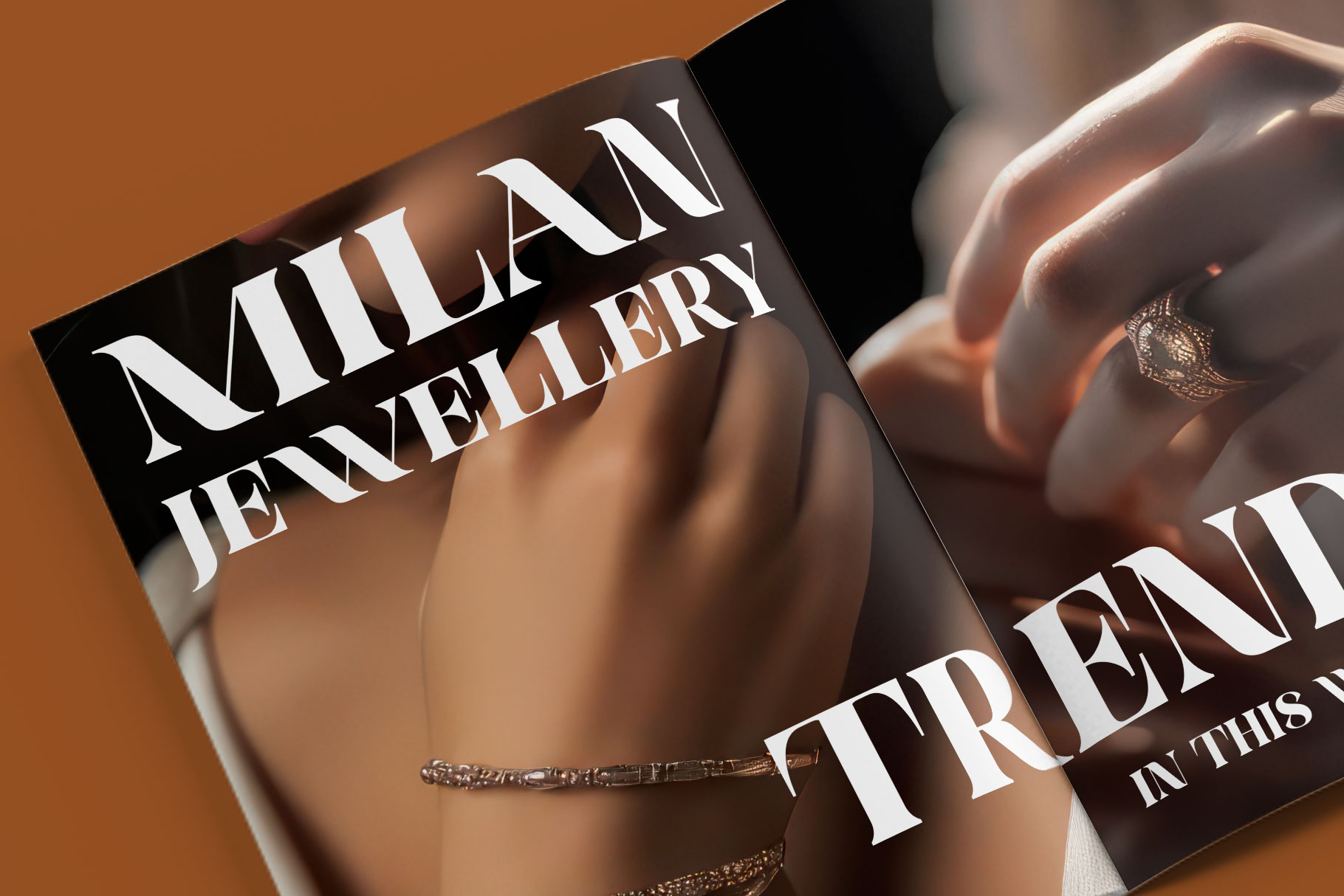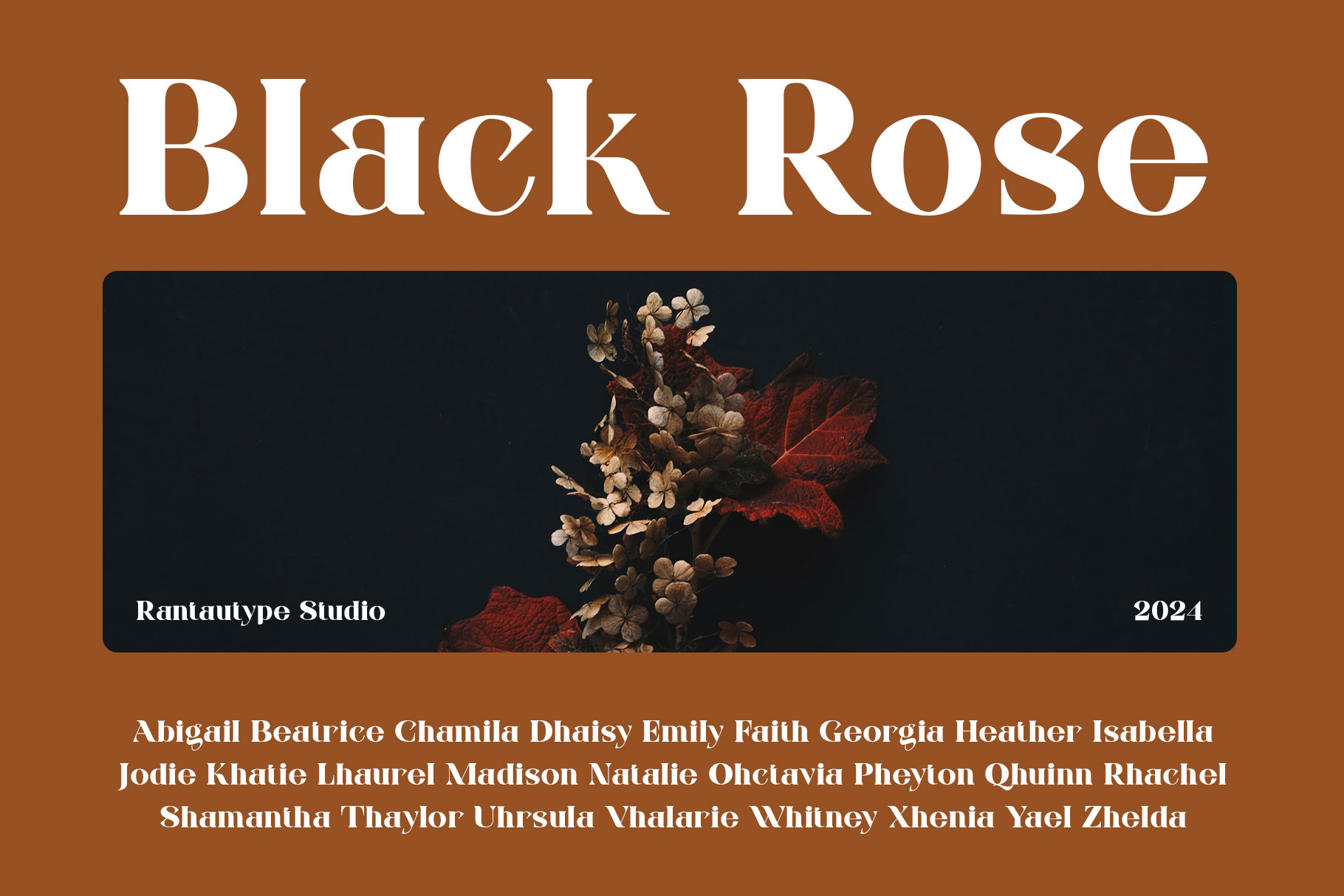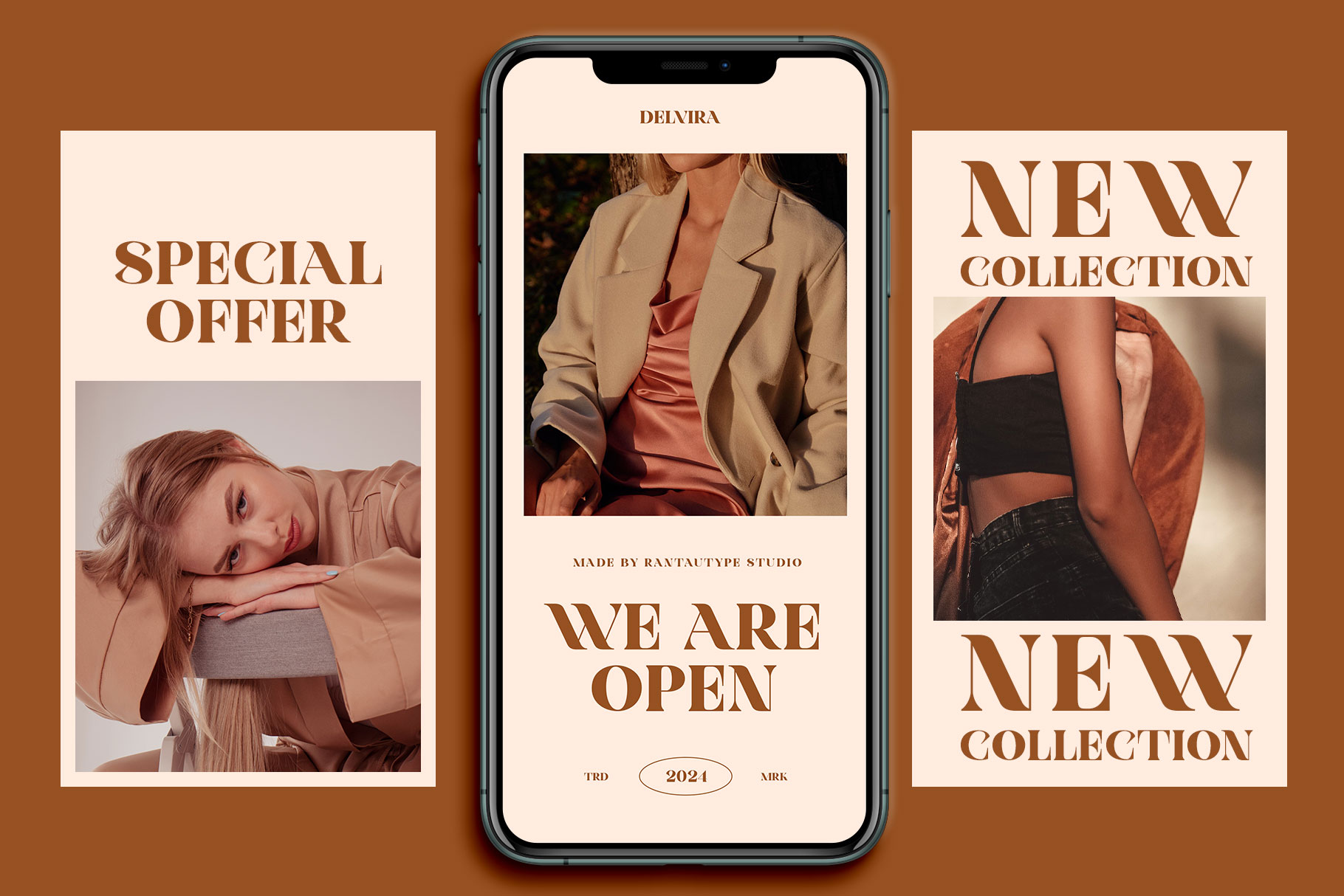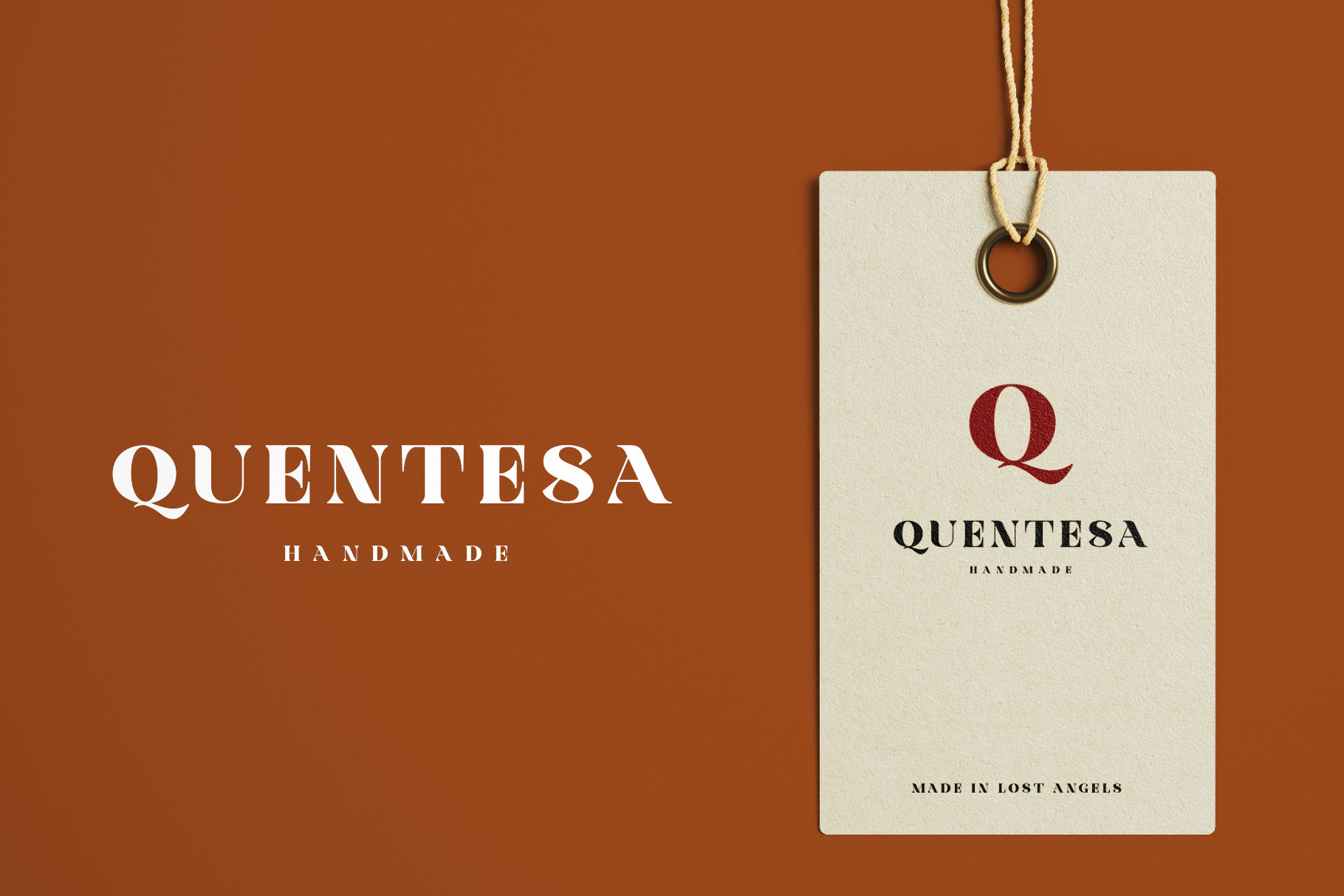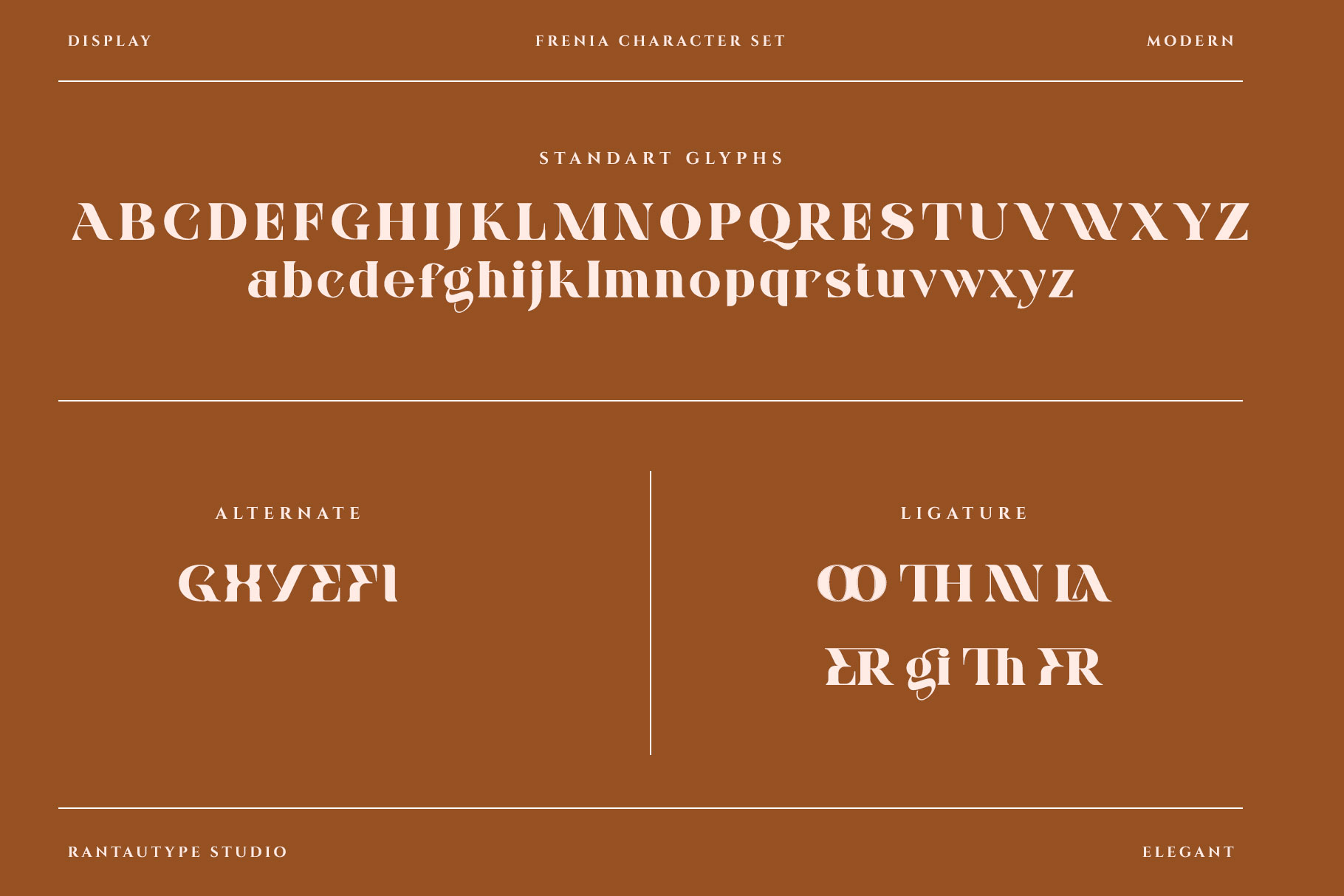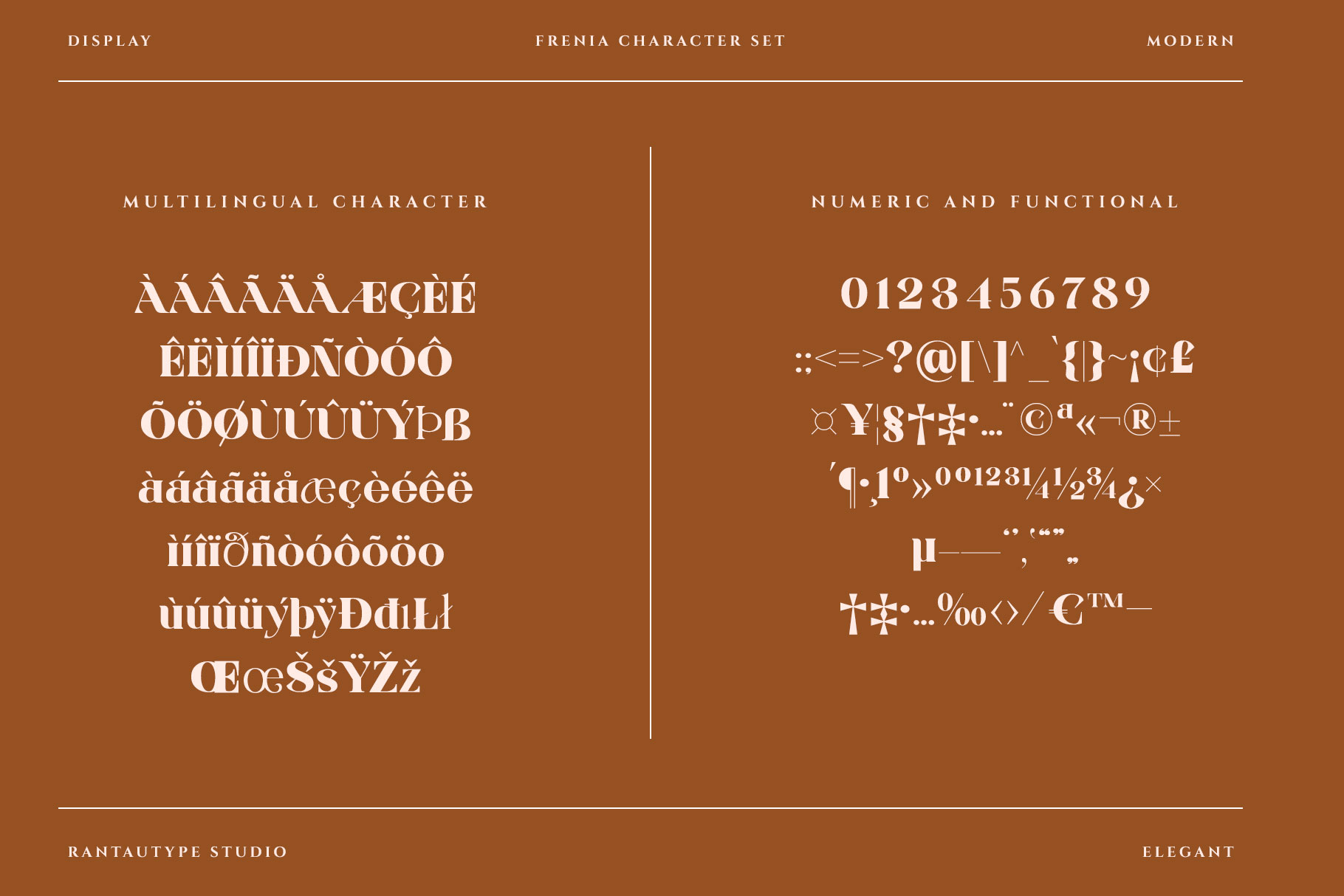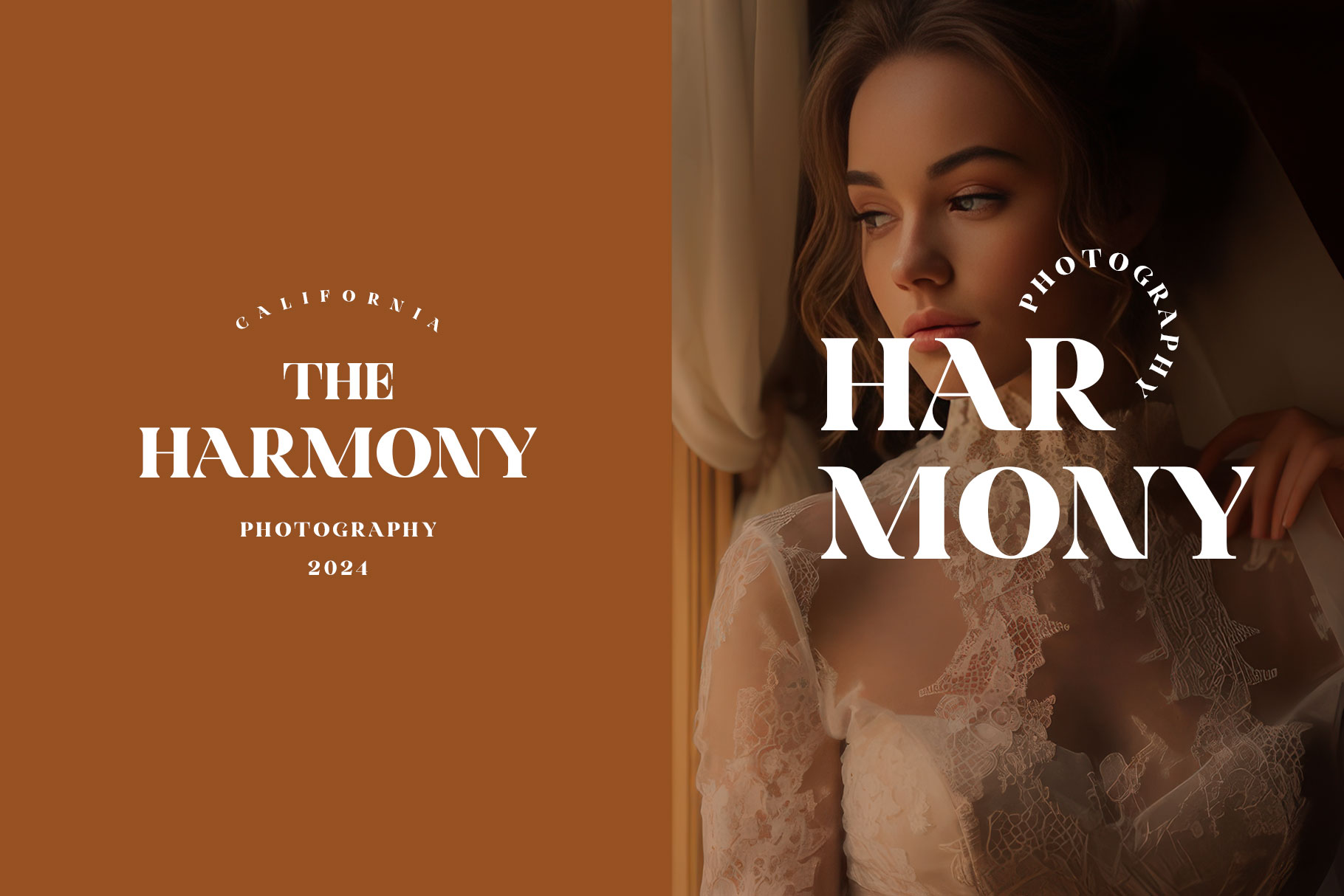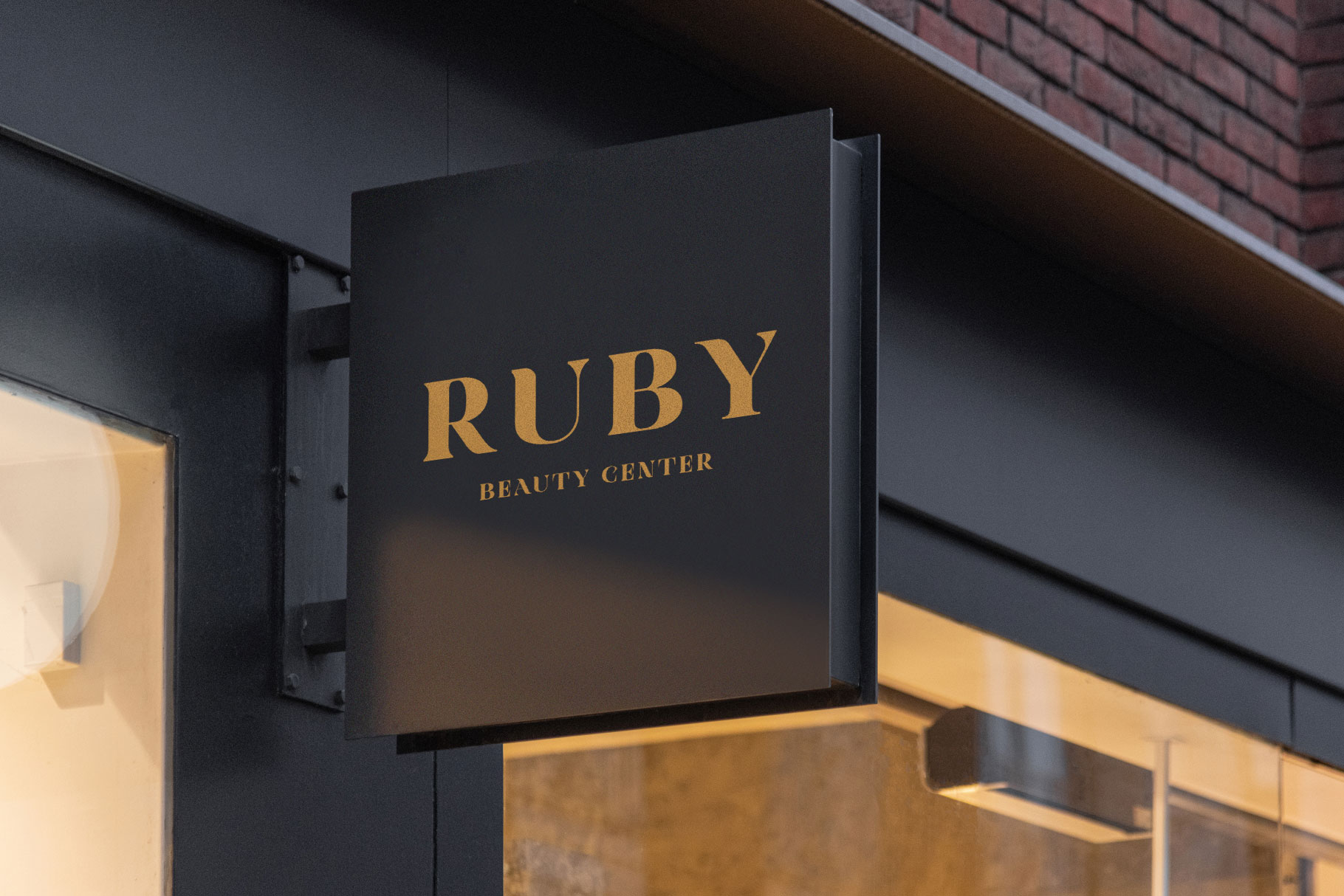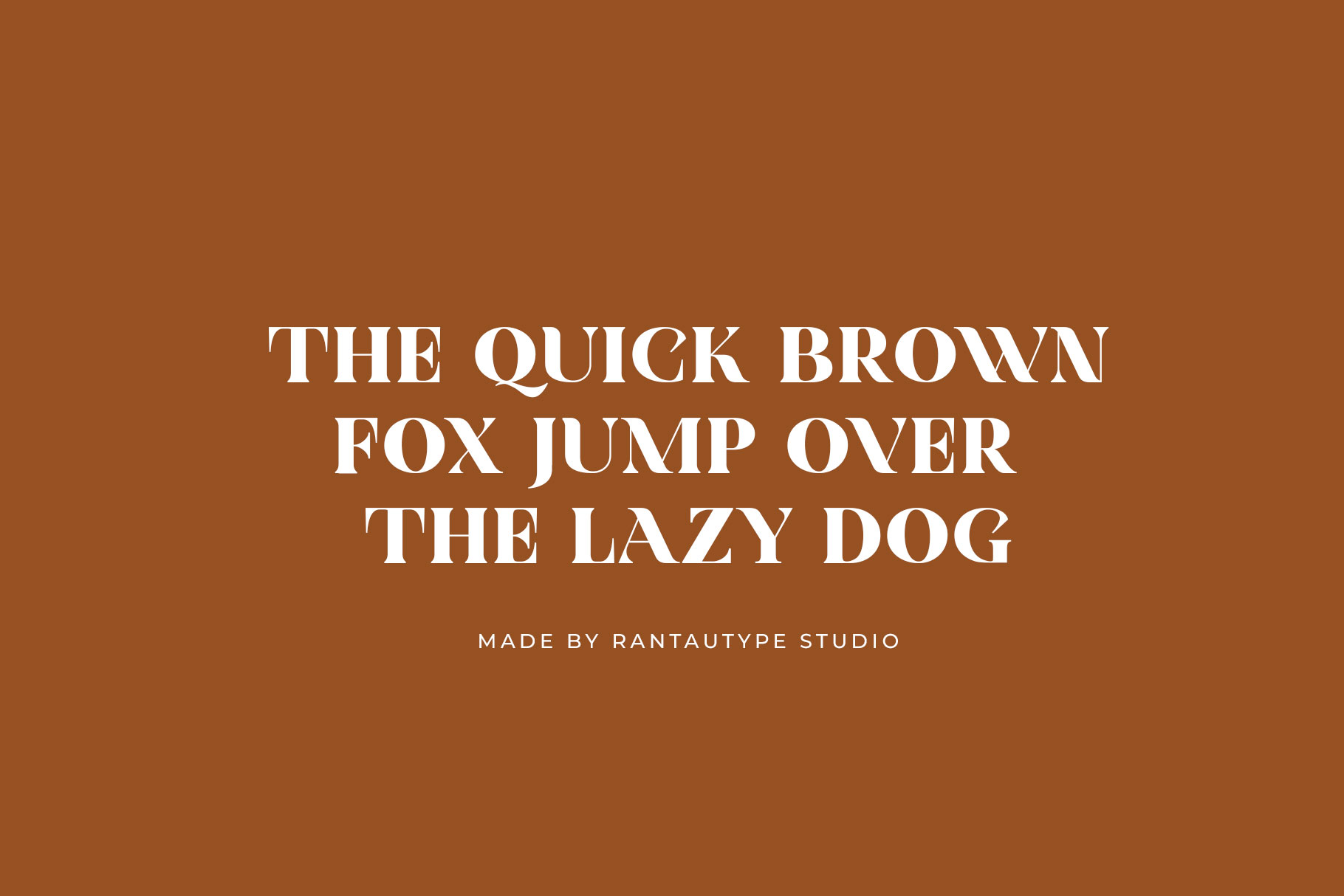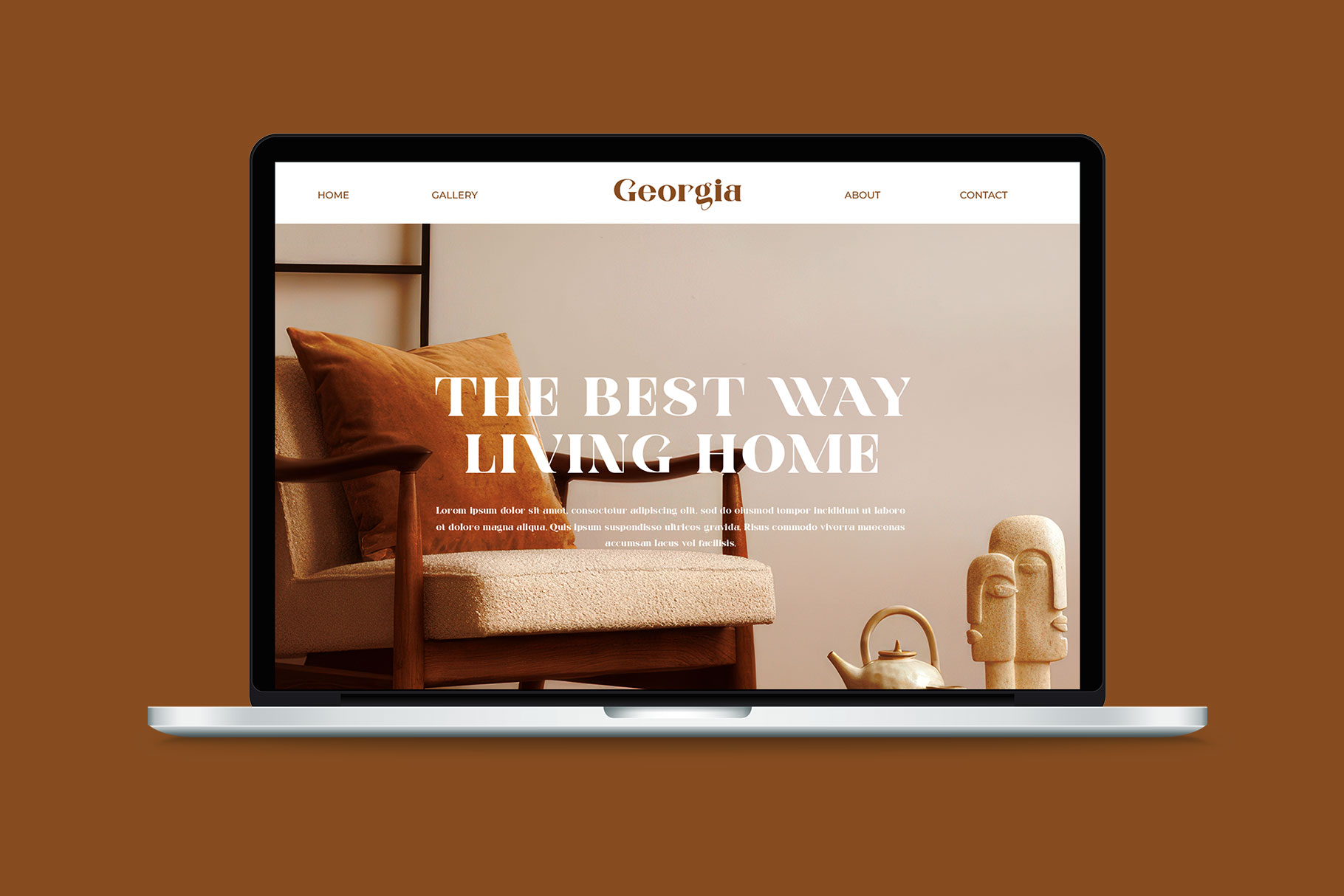
Frenia Modern Serif Typeface
Frenia is modern display typeface with bold visual look. Frenis inspire by famous style and branded brand which reflects elegancy and luxurious..
Frenia is a perfectly choice for any creative endeavor, chic, lifestyle design such as logos, advertisements, watermark on photography, stationery, branding project, display and magazine, invitation, corporate brand, product design, label, business project and many other project with elegant touch.